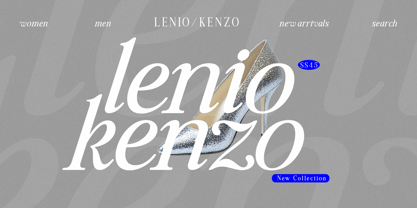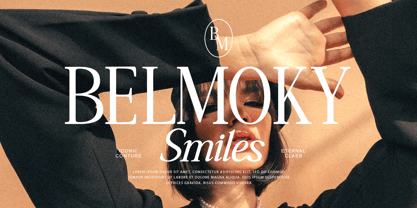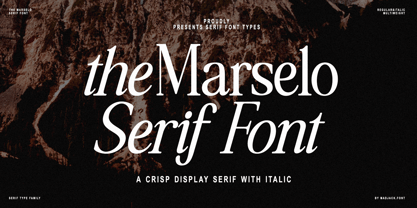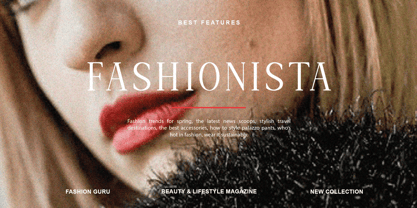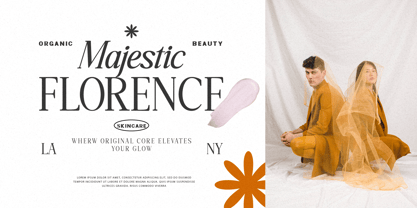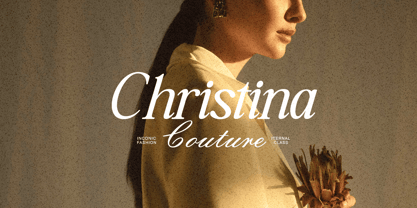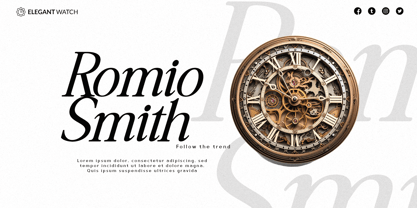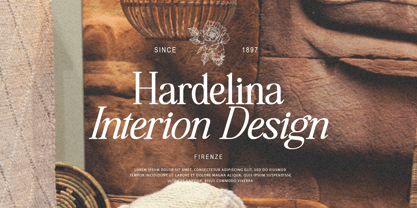
Marselo Legular
by madjack.font
The Marselo Legular Font Family was designed by Zaki Muhammad and published by madjack.font. Marselo Legular contains 2 styles and family package options.
Introducing Marselo Serif Font – a soft and expressive serif typeface
Marselo Serif Font combines classic elegance with a contemporary touch. With graceful serifs, artistic strokes, and sophisticated letterforms, Marselo Serif Font delivers a strong and captivating visual appearance. Ideal for branding, editorial layouts, product packaging, and any design project that requires a bold and romantic touch.
Designed with great attention to detail, this typeface is best suited for large sizes, especially for headlines and other display elements—giving character and emotion to any design.